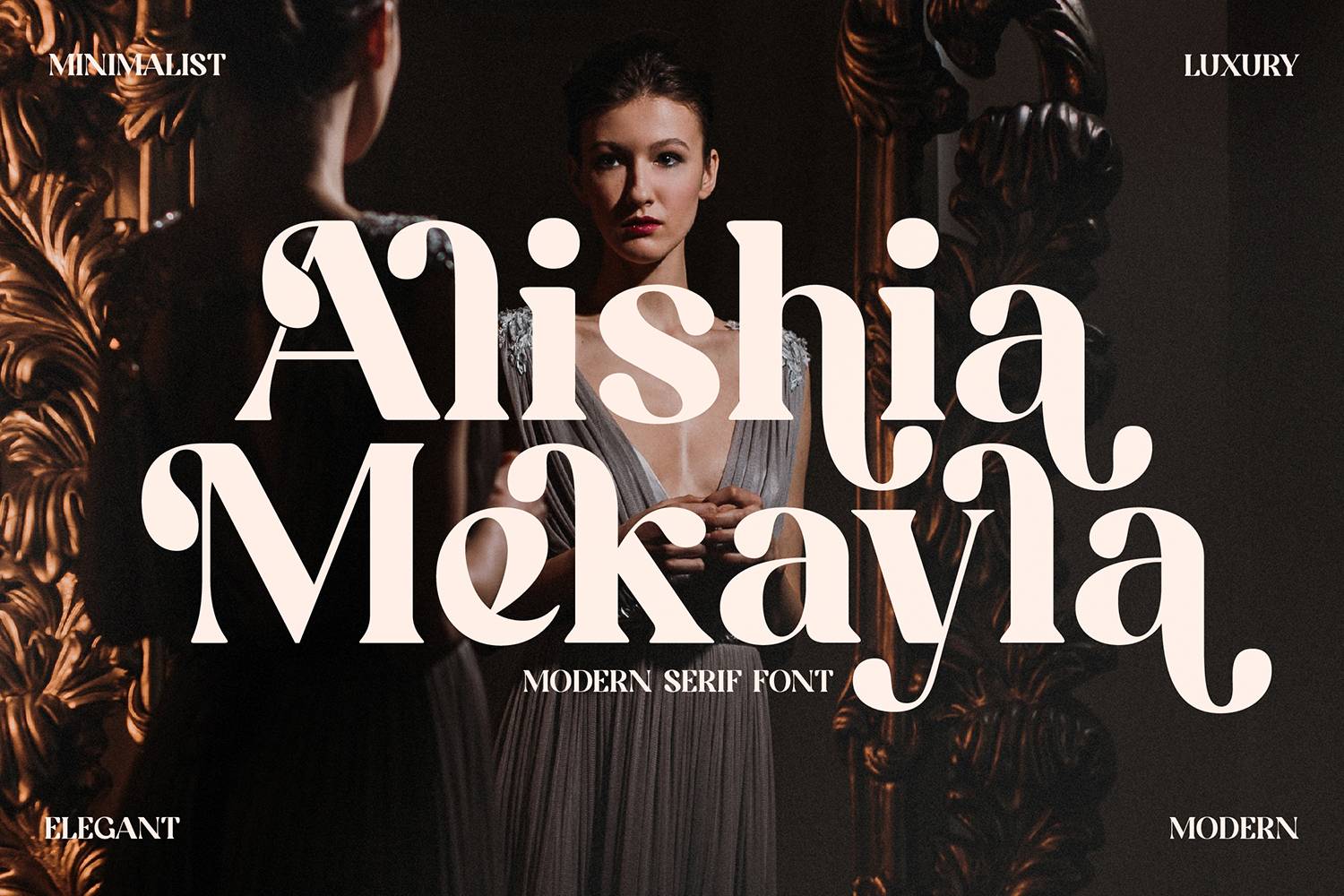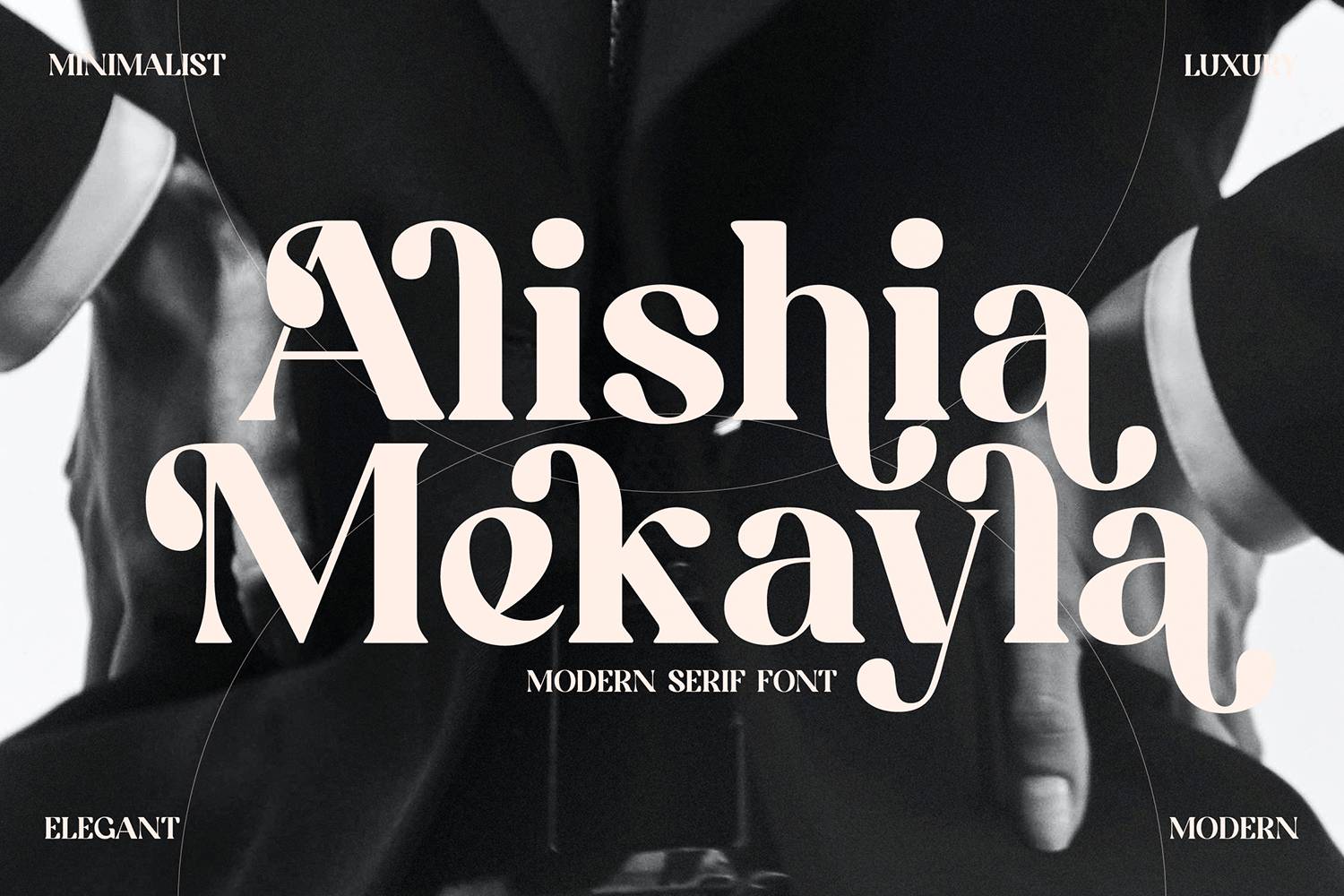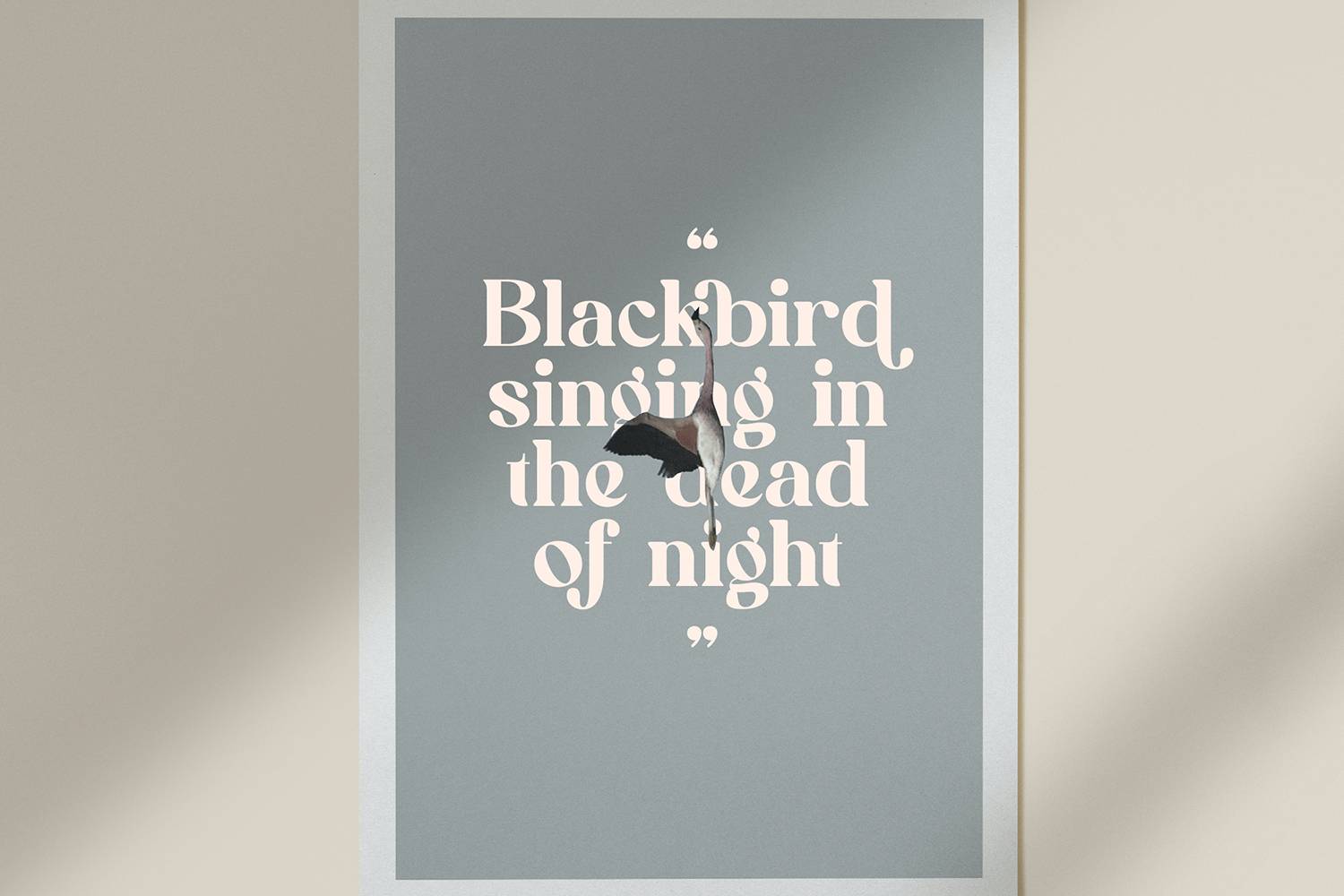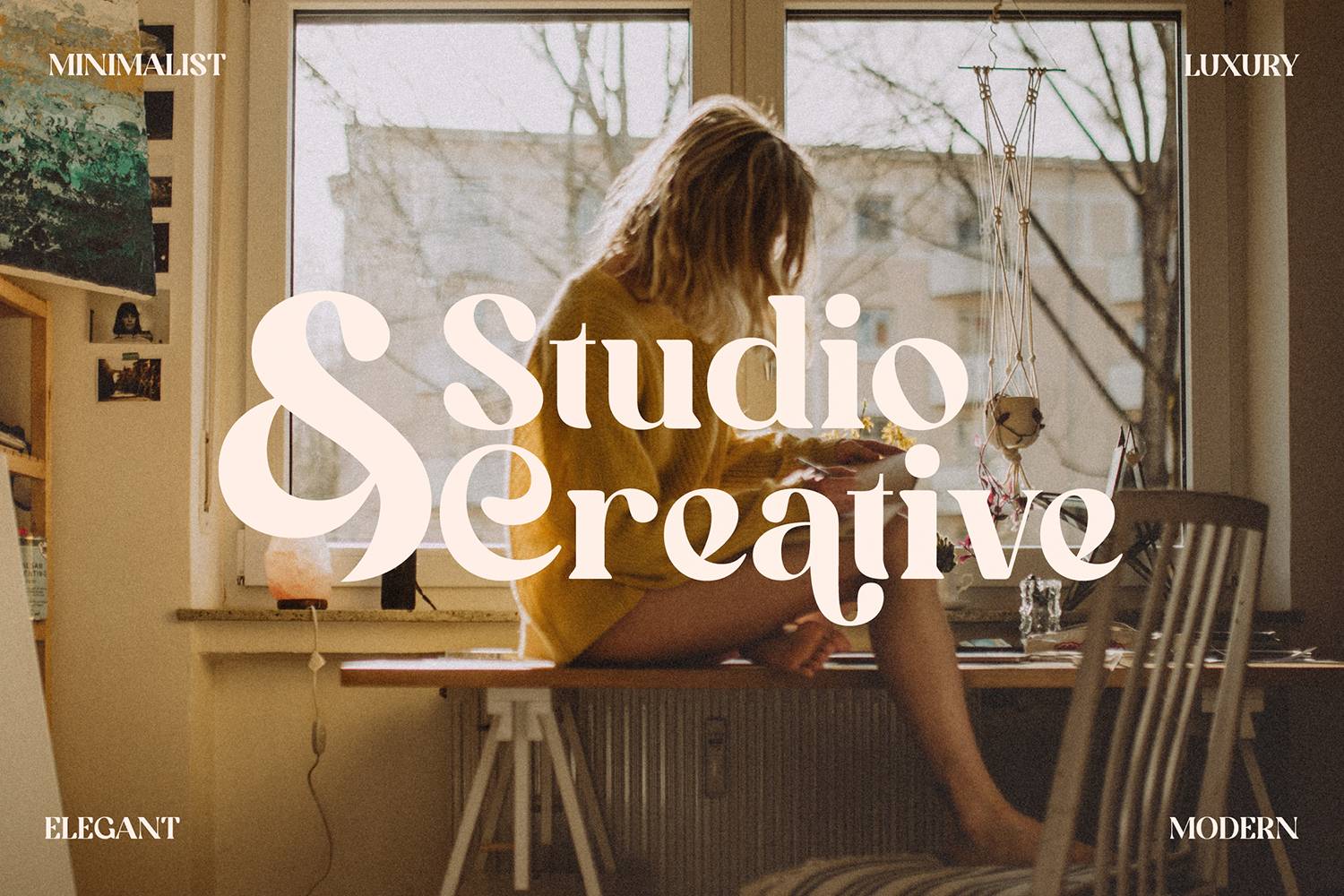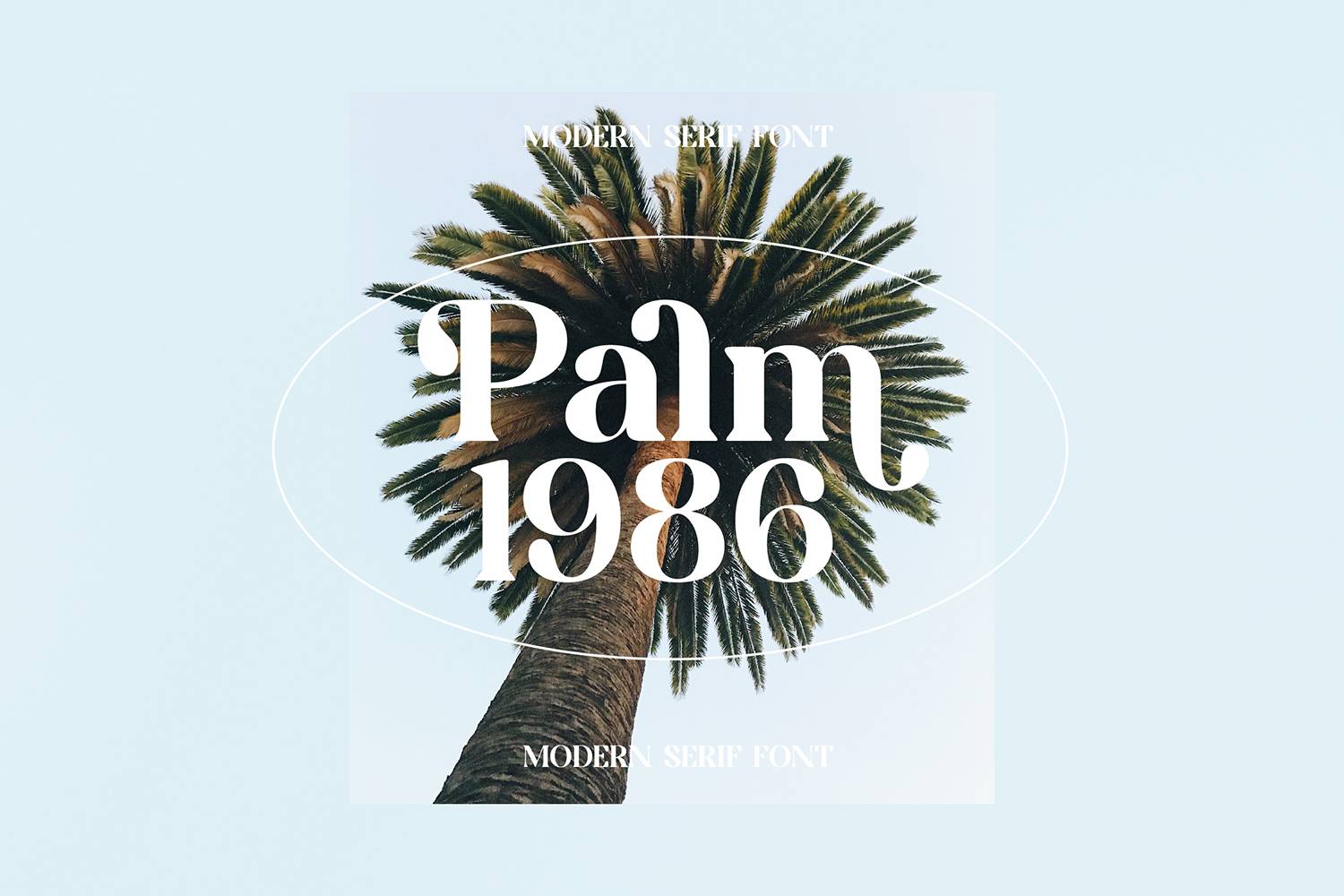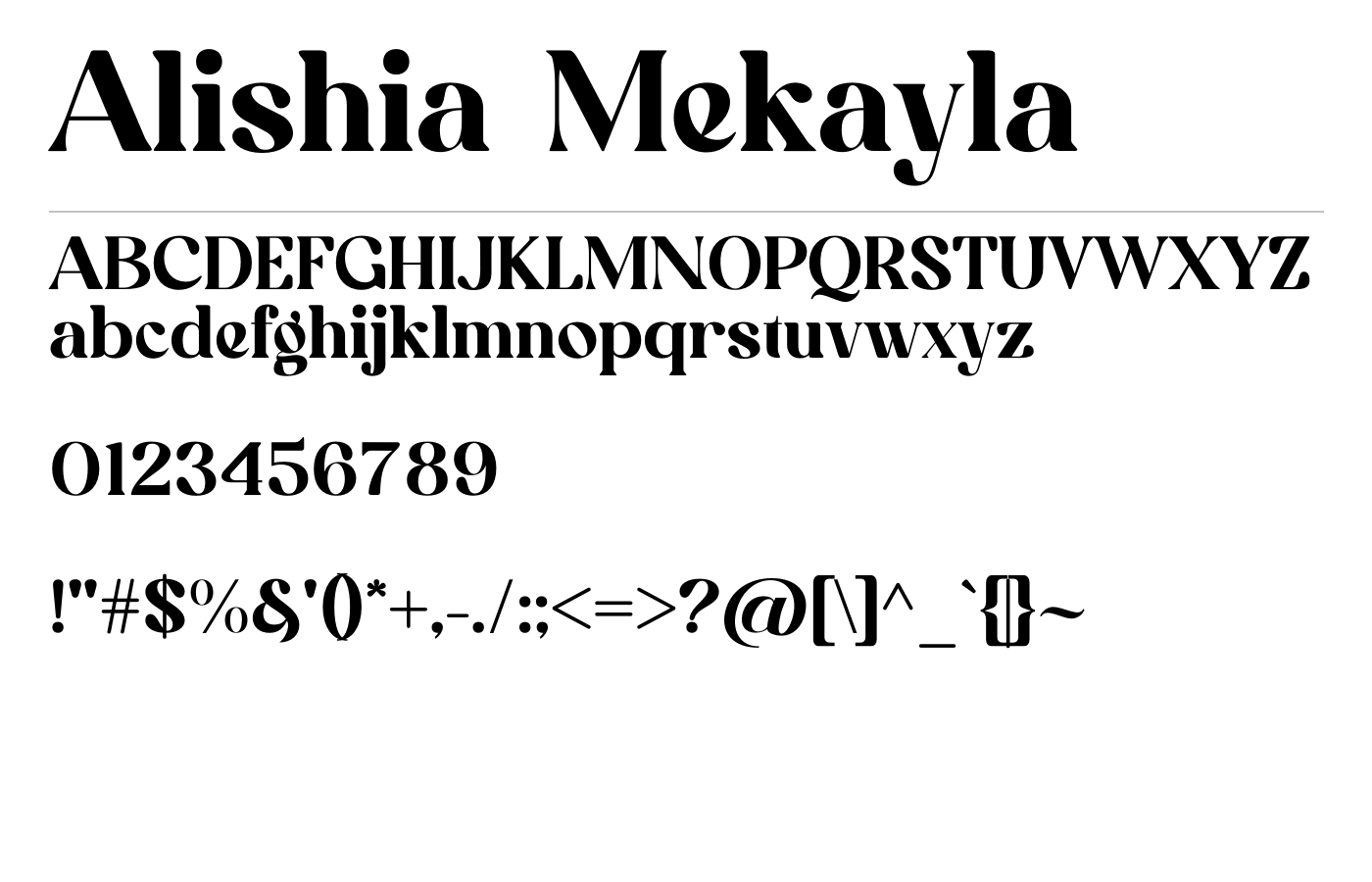
Alishia Mekayla is a bold serif font with a classic, elegant feel, featuring strong contrast between thick and thin strokes and sharp, bracketed serifs. Its refined letterforms, including unique details like the curved tail on the Q and the double-story g, give it a sophisticated yet approachable personality, making it ideal for luxury branding, editorial headlines, and stylish packaging. This font stands out in designs that seek a timeless, confident look with a touch of modern flair.
Alishia Mekayla Font
About Alishia Mekayla Font
| Font family | Alishia Mekayla Font |